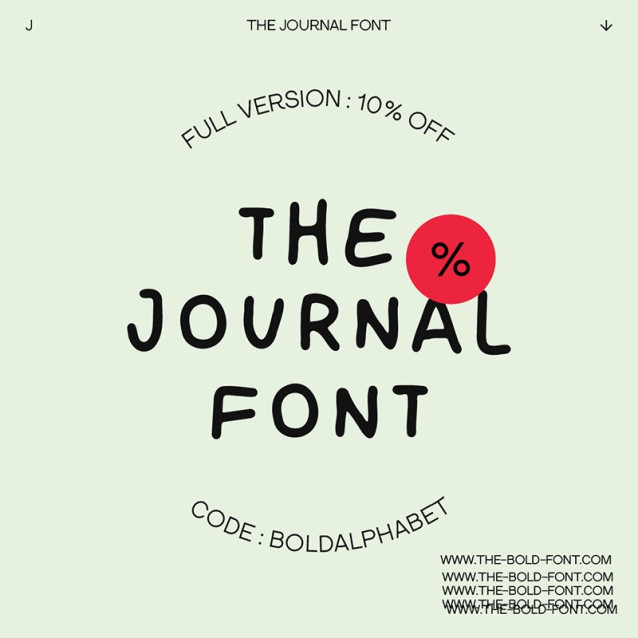
The Journal Font
The Journal Font is a simple and friendly handwritten font. Its natural and unique style makes it incredibly fitting to a large pool of designs. The only limit is your imagination!